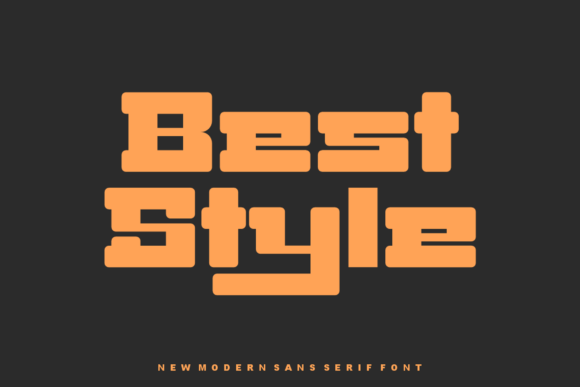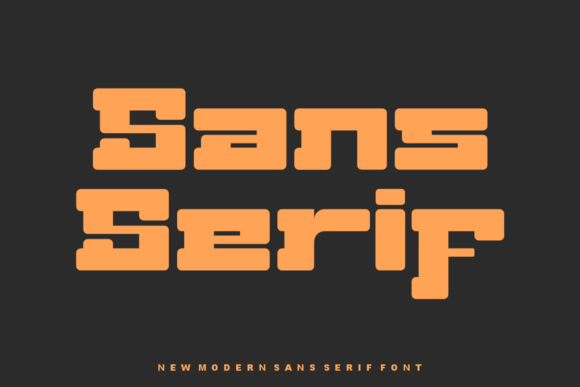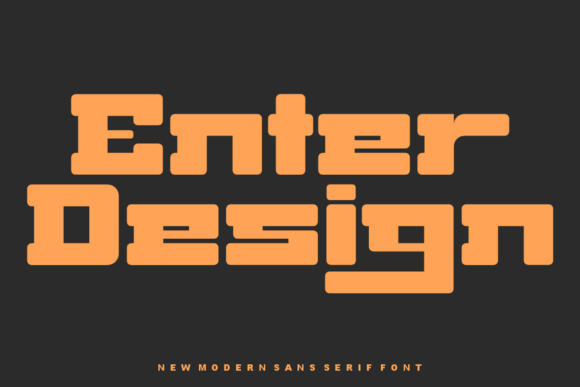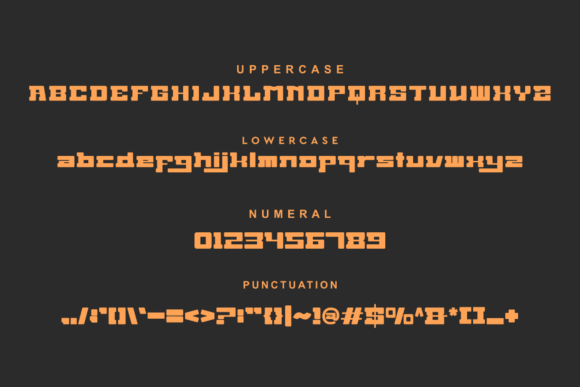
Street Globalist: A Bold and Authentic Slab Serif Font
Street Globalist is a bold and authentic slab serif font that brings character to any branding project. This versatile typeface looks outstanding across various applications, from logos and t-shirt printing to export materials and beyond.
Key Features of Street Globalist
- Bold Design: Offers strong, impactful letterforms.
- Authentic Style: Brings genuine character to designs.
- Versatile Use: Adapts well to many creative applications.
- Outstanding Look: Makes a strong visual impact.
Best Uses for Street Globalist
Thanks to its bold characteristics, Street Globalist works especially well for:
- Distinctive logos
- T-shirt designs
- Export materials
- Brand identity
- Marketing collateral
- Display typography
- Advertising materials
When using Street Globalist in your designs, keep these tips in mind:
- Try it for headlines or short text to show off its bold style.
- Use different sizes to highlight its authentic features.
- Pair with simpler fonts for body text to create contrast.
- Let its versatility enhance various branding contexts.
To sum up, Street Globalist is an excellent choice for designers seeking a bold and authentic slab serif font. Its versatility makes it perfect for various branding projects. Whether you’re creating logos, designing t-shirts, or developing export materials, Street Globalist offers the perfect blend of boldness and authenticity.
Furthermore, Street Globalist’s distinctive design allows it to shine in many different settings. For instance, from brand identity to marketing materials, this font can lift your projects with its powerful style. Also, its bold yet readable appearance works particularly well in designs that aim to make a strong impact.
In conclusion, Street Globalist truly stands out in the world of slab serif typography. Its ability to work well across so many different uses shows how flexible it can be. Therefore, for those wanting to add a bold, authentic touch to their work, Street Globalist can enhance any design with its distinctive style. Ultimately, it’s perfect for designers aiming to make a strong, memorable impact across many different kinds of creative projects.